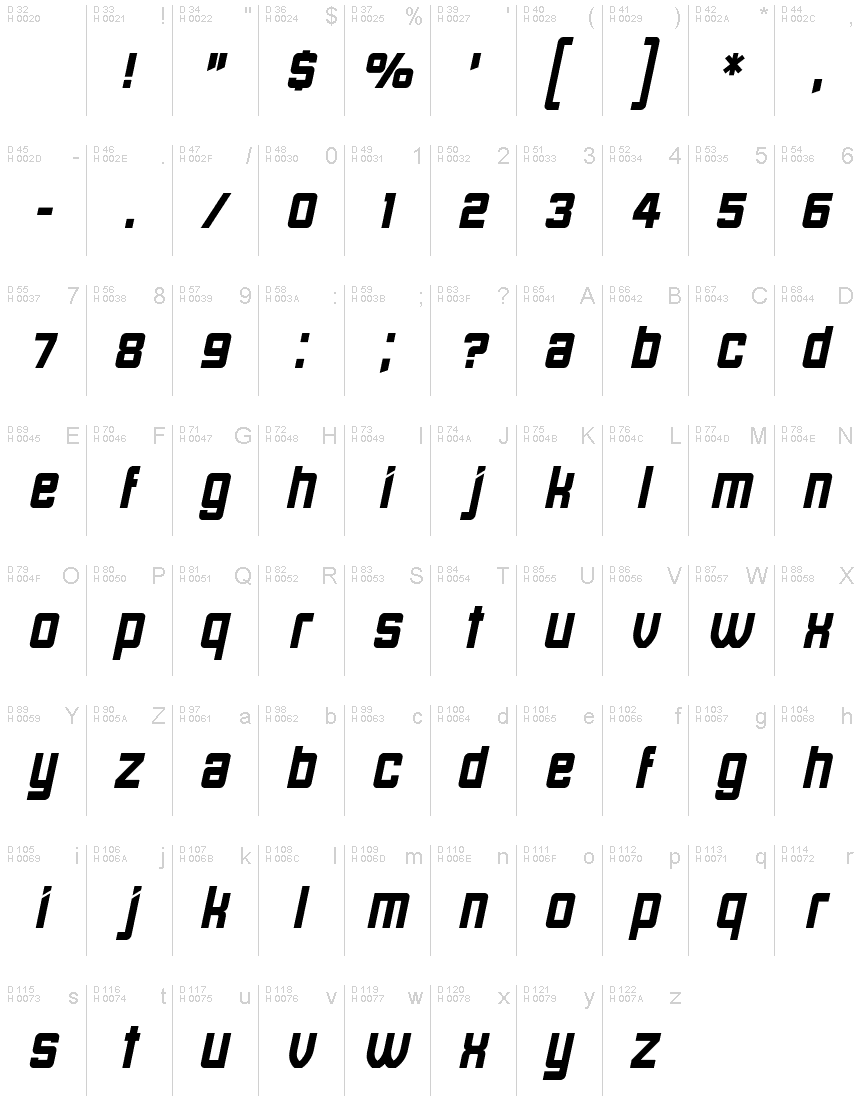
Riviera Book Regular
Riviera Book is a display font from the talented designer Vladimir Nikolic. With its semi-bold style and condensed width, this font is perfect for adding character to any project that needs a sleek and modern touch. From book covers to product packaging, Riviera Book's unique design will make any text stand out. Use it for creating eye-catching posters, flyers, or social media graphics that demand attention. Its boldness makes it perfect for headlines and subheadings in magazines or newspapers. So if you're looking for a font that screams sophistication and style, look no further than Riviera Book!